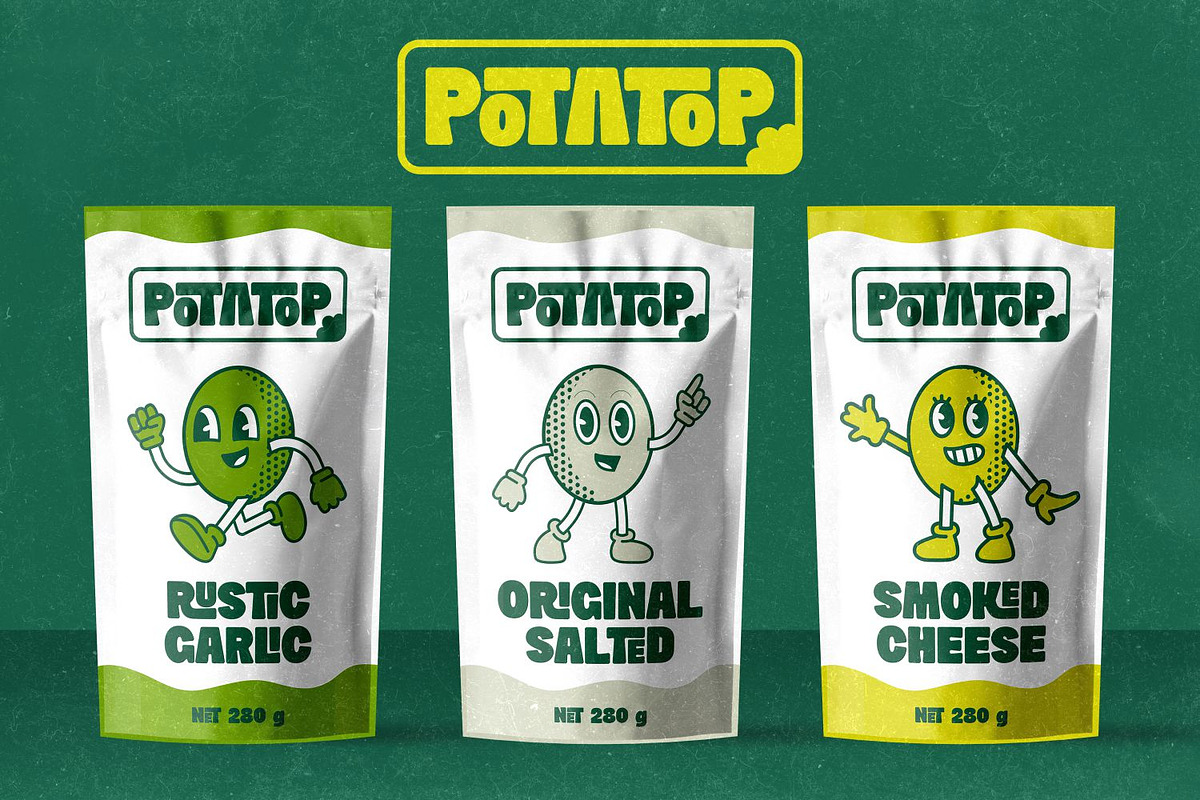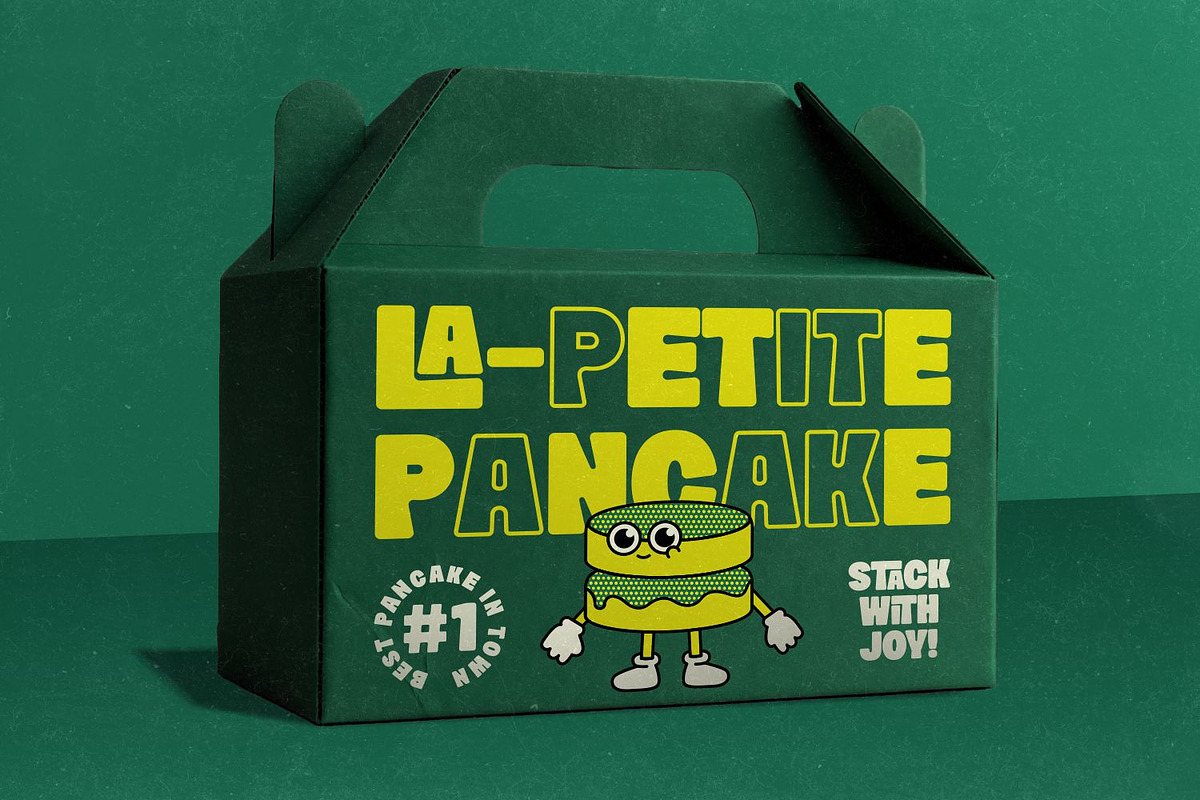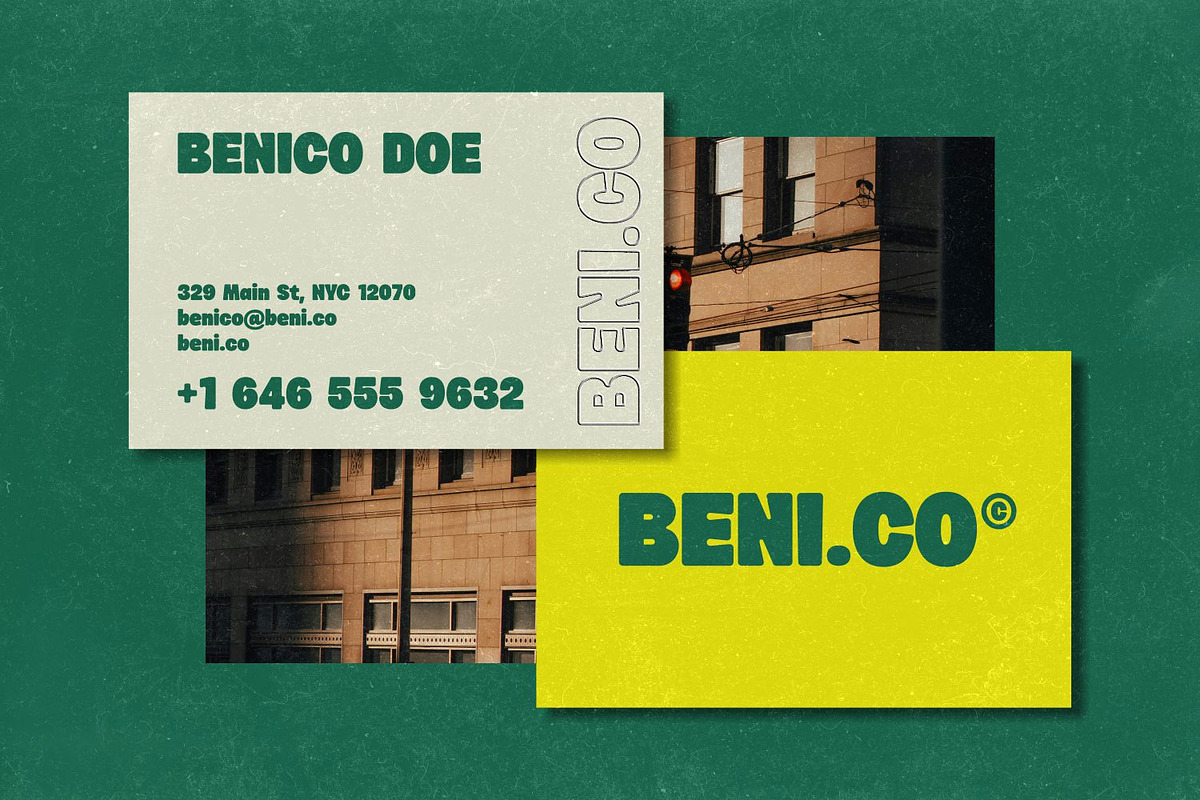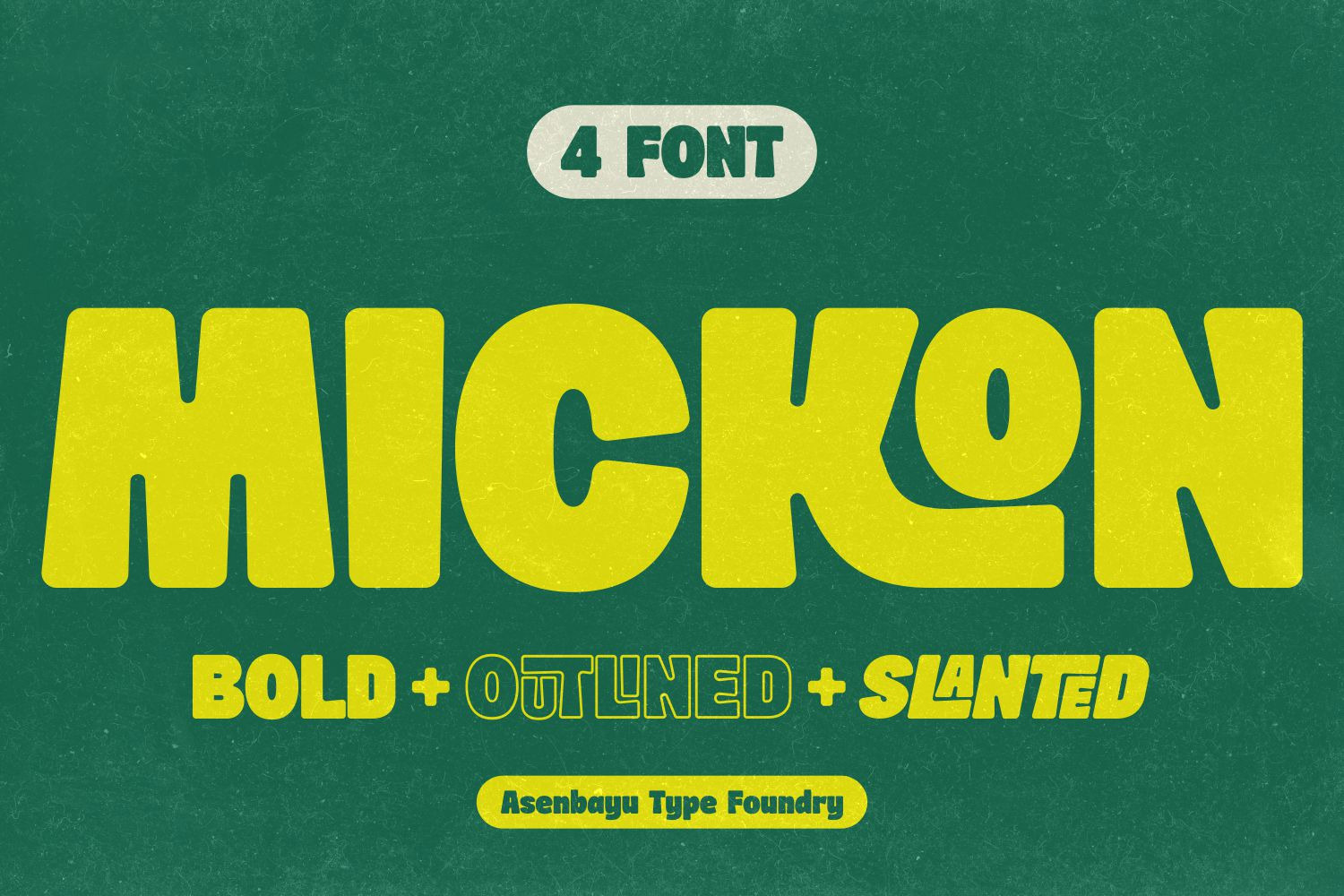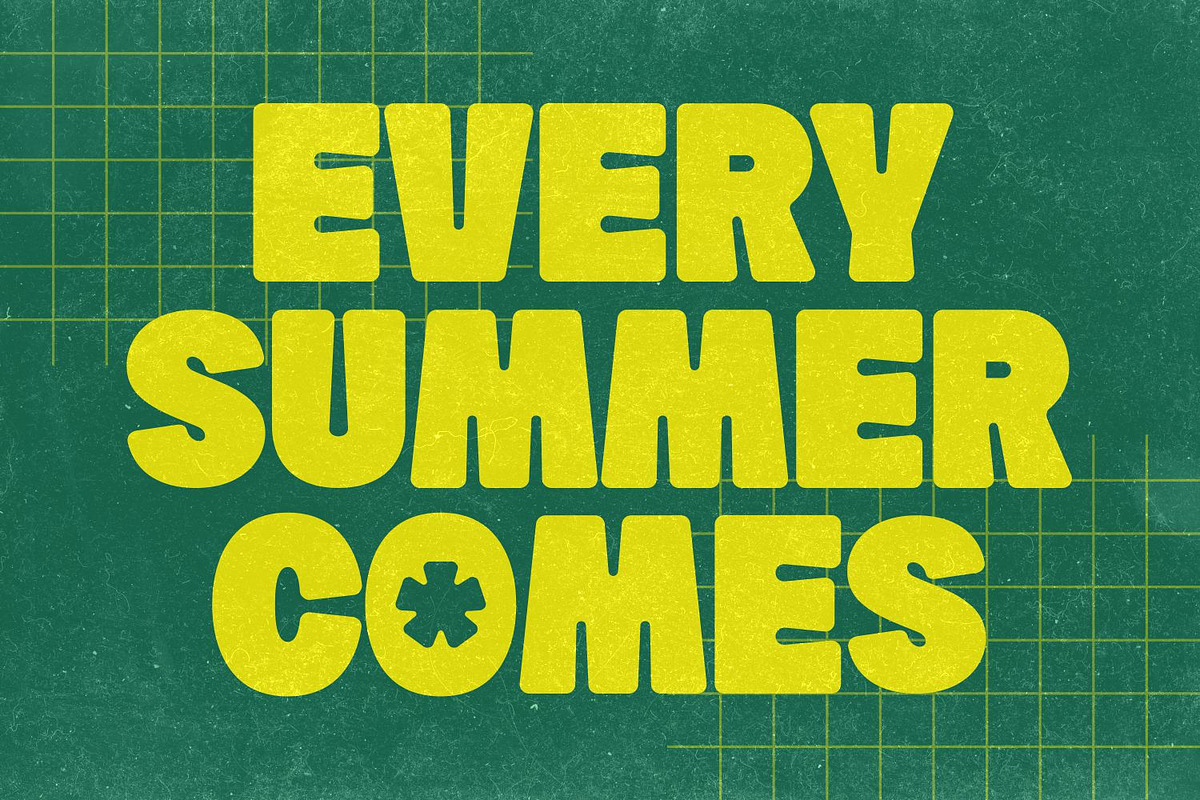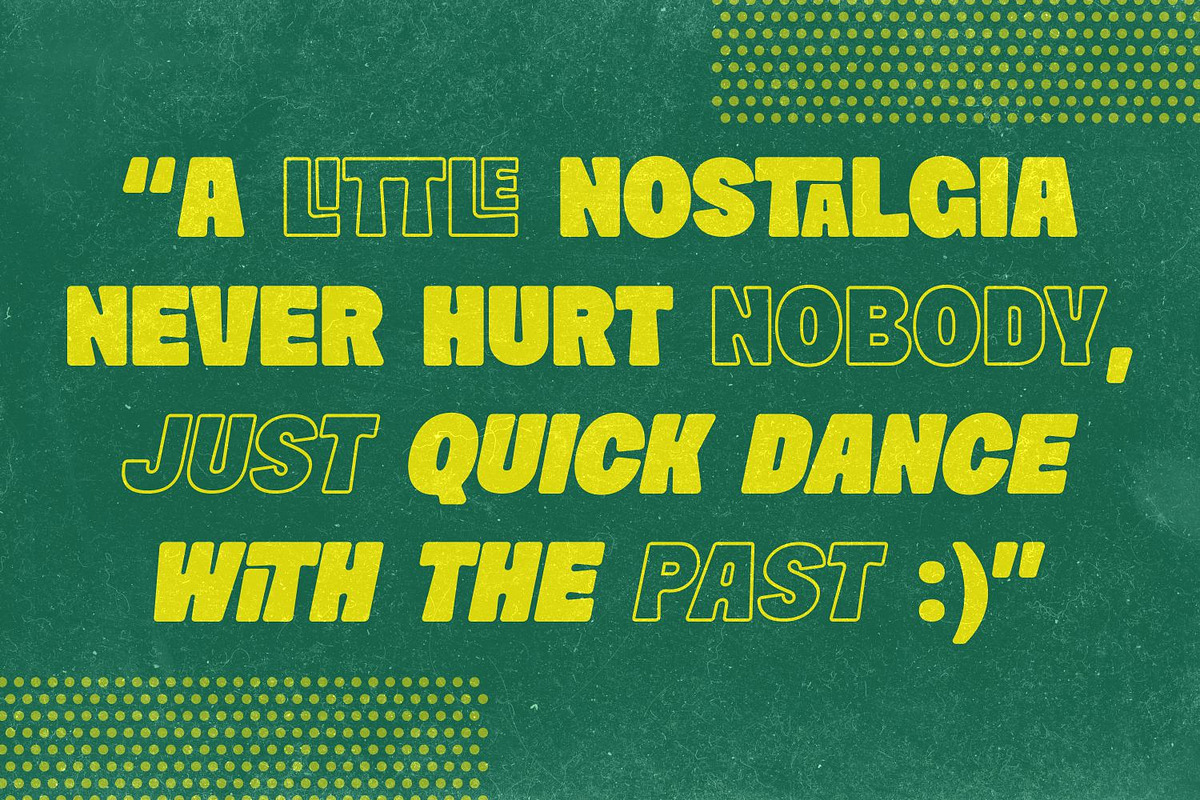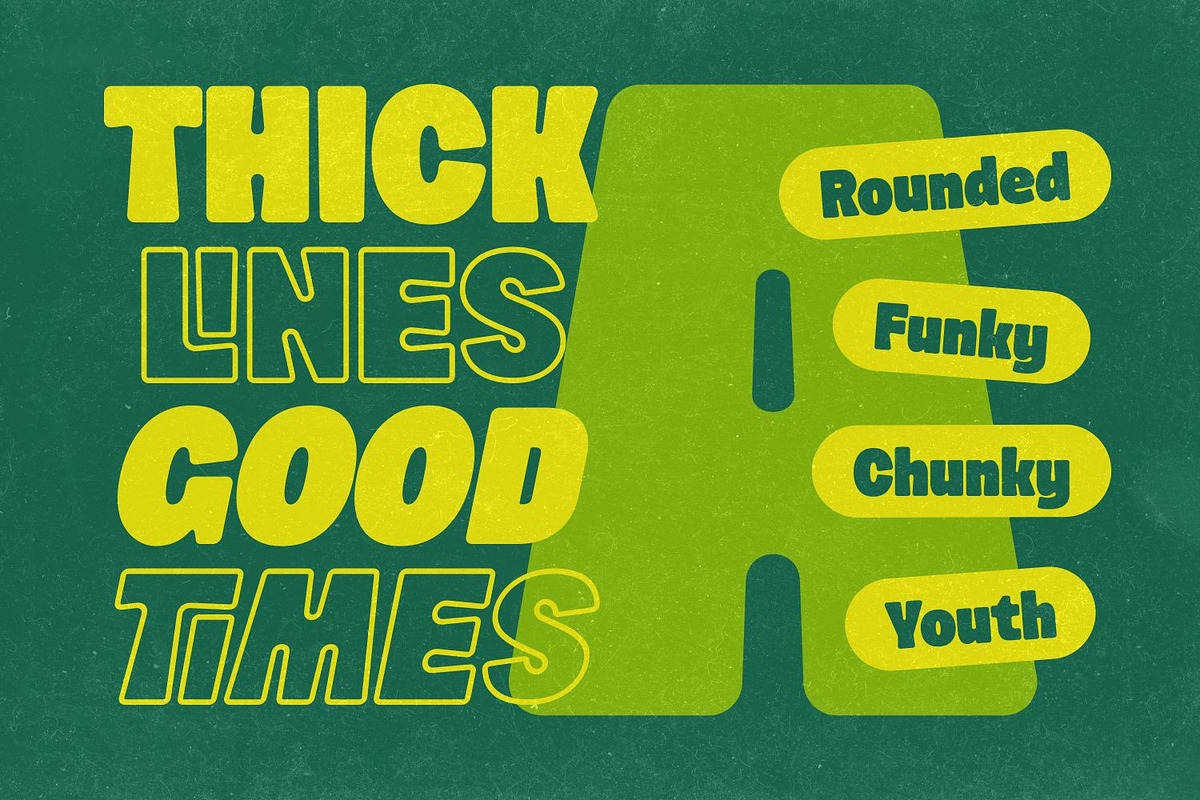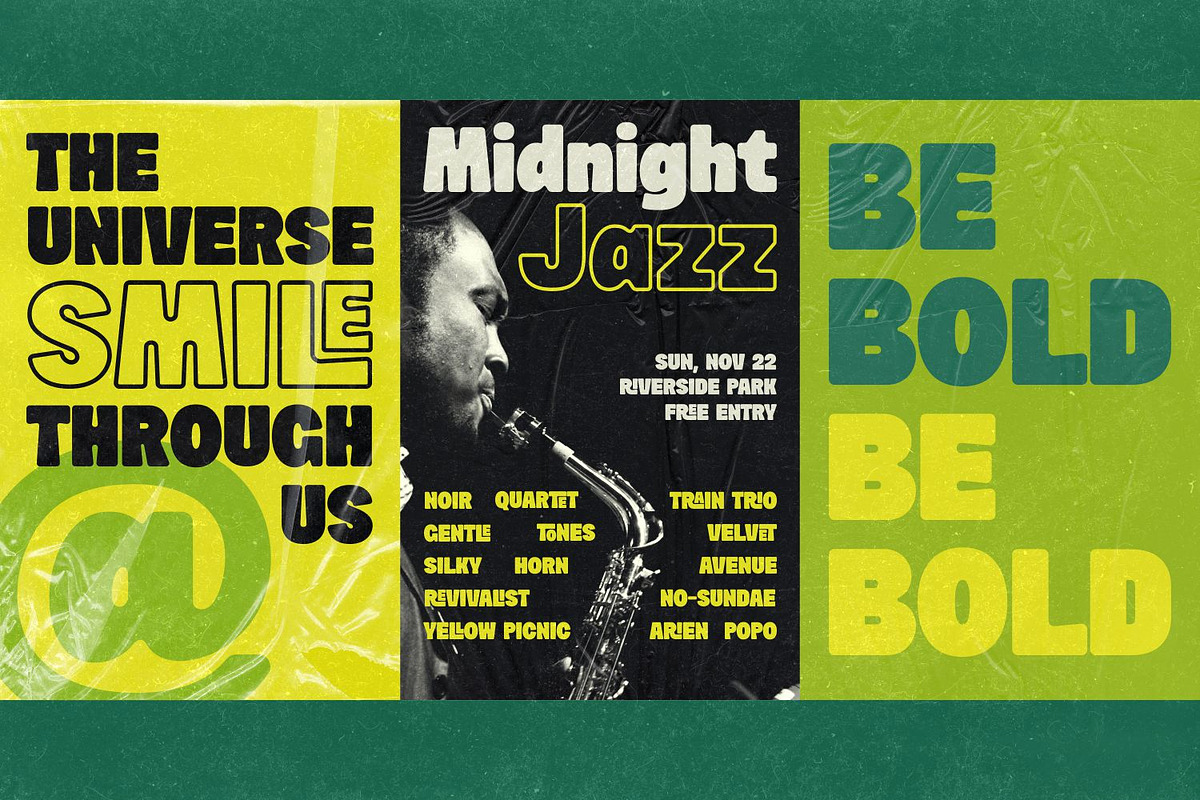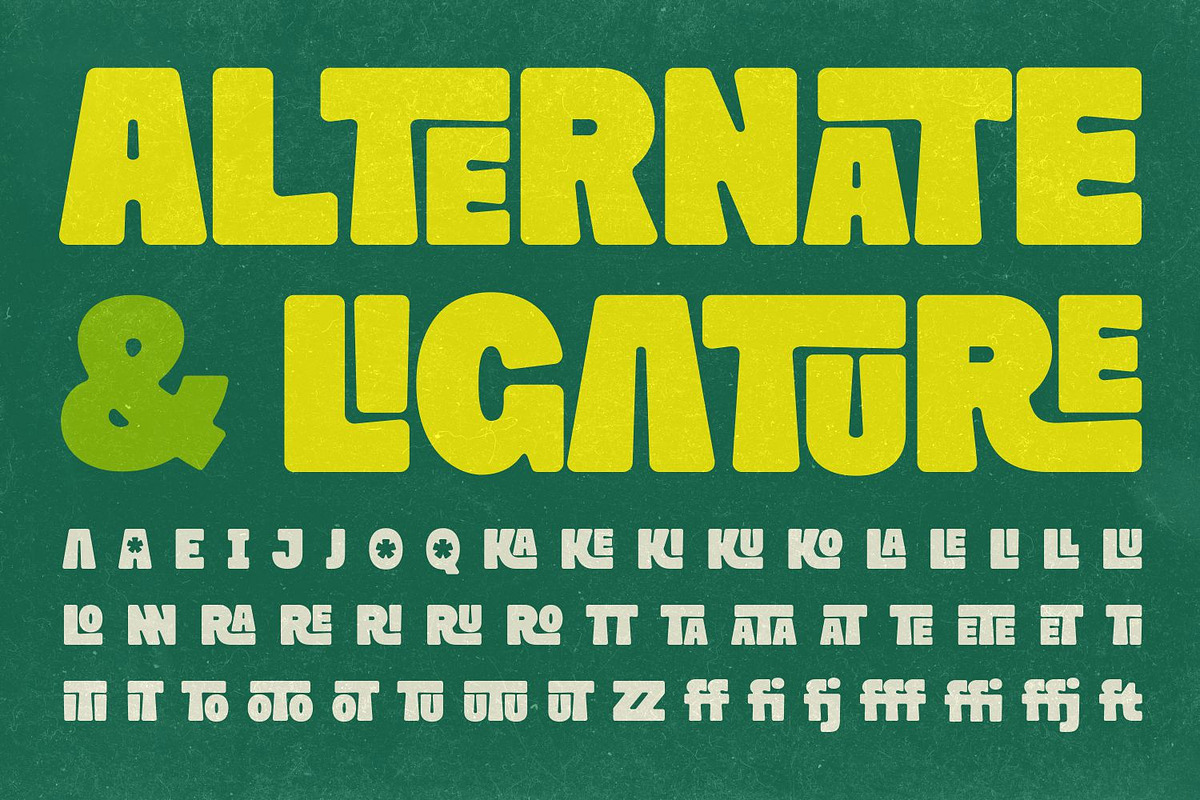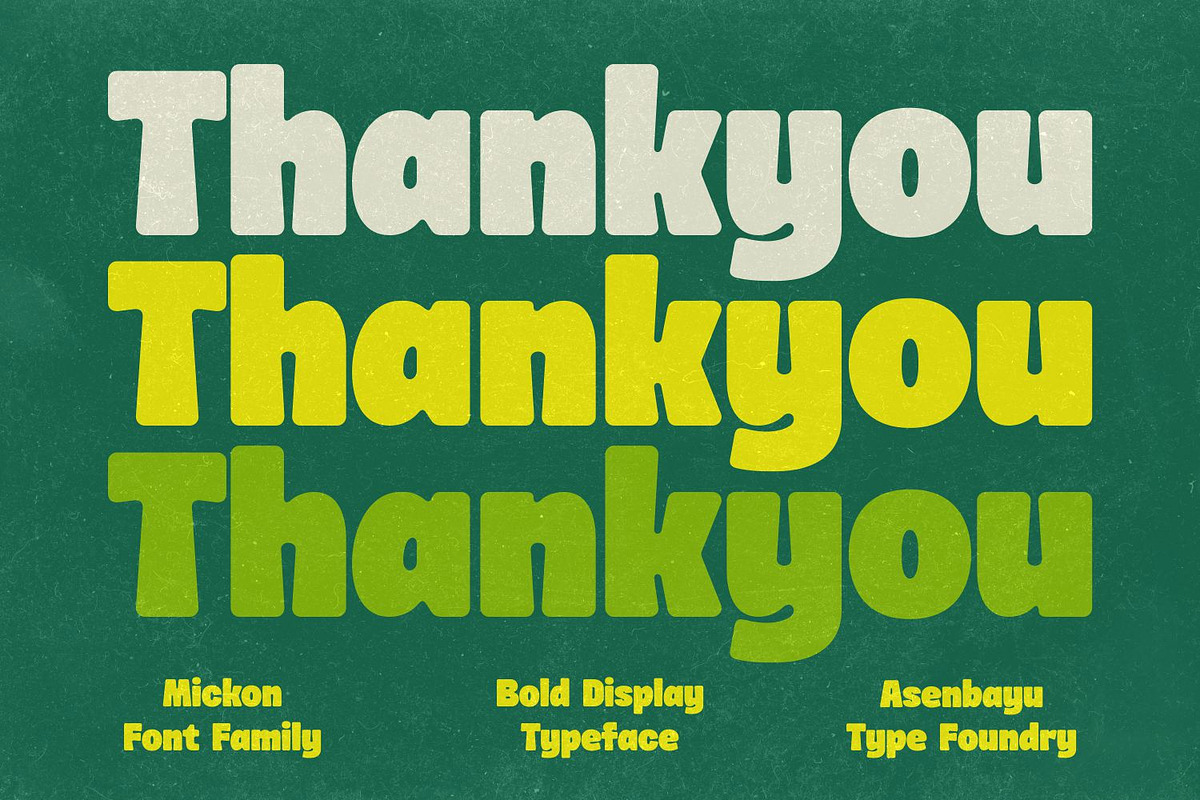
Mickon Font Family
Mickon is a bold and rounded retro display font that radiates youthful nostalgia. Its plump shapes and smooth corners echo the cheerful spirit of vintage design, giving every word a friendly, approachable vibe. Available in Solid, Outline, and Slant styles, Mickon is designed to stand out—perfect for posters, logos, branding, or bold headlines that need a touch of warmth and character. Every letter feels confident yet soft, full of life and personality.
Mickon font features:
- 4 style: Bold, Bold Slant, Outline, Outline Slant
- Standard glyph
- Stylistic alternates
- Stylistic ligatures
- Symbol & punctuation
- Multiple languages supported